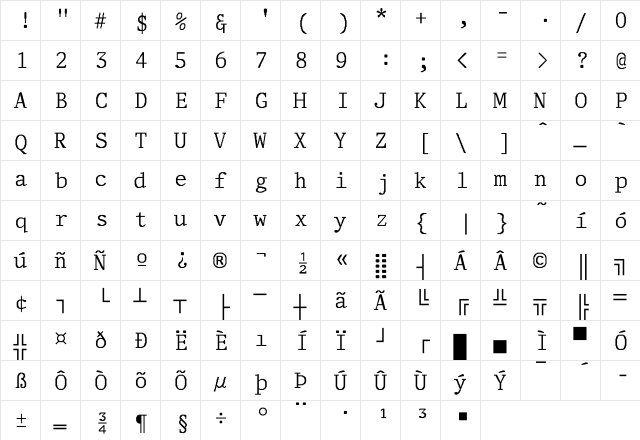
Adjutant-Normal Regular
Design Context for Adjutant-Normal Typeface
Adjutant-Normal offers clean, dependable letterforms without strong stylistic allegiance, making it a practical choice for designers who need flexibility.